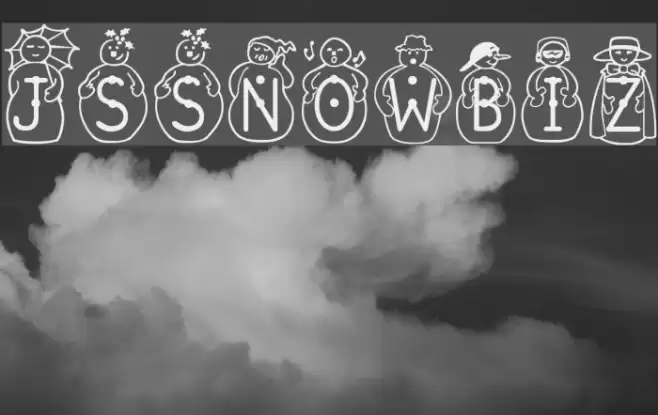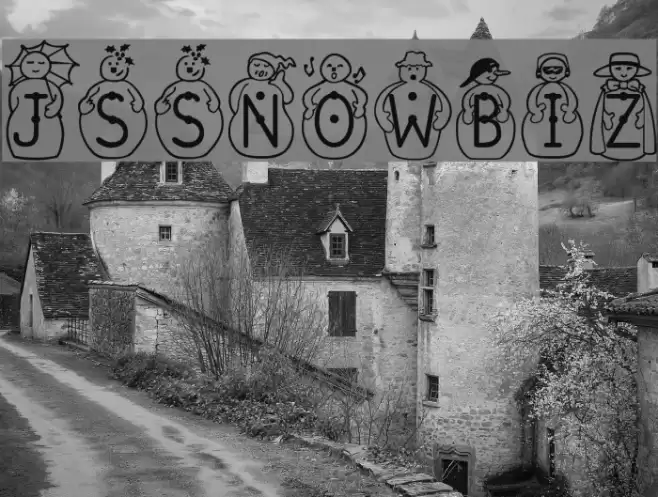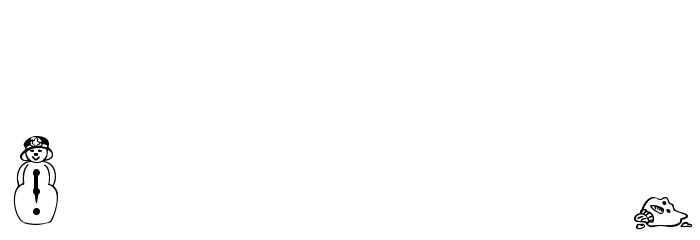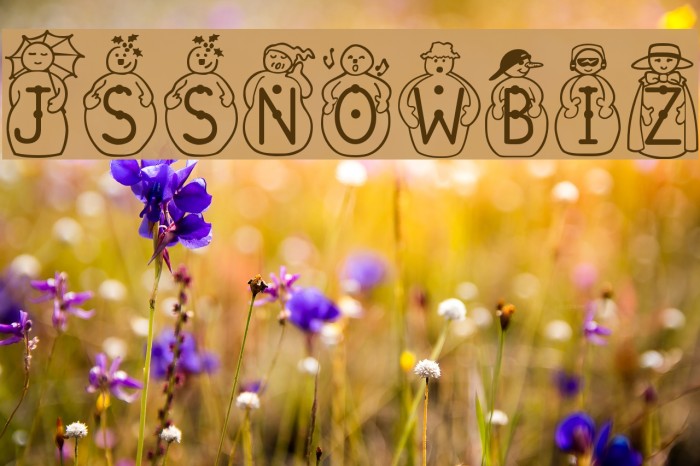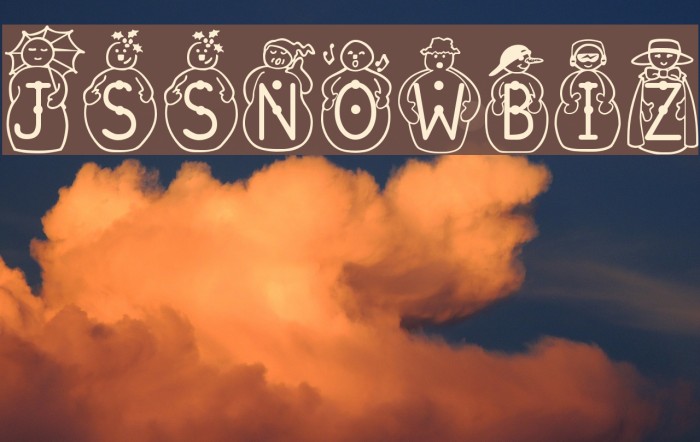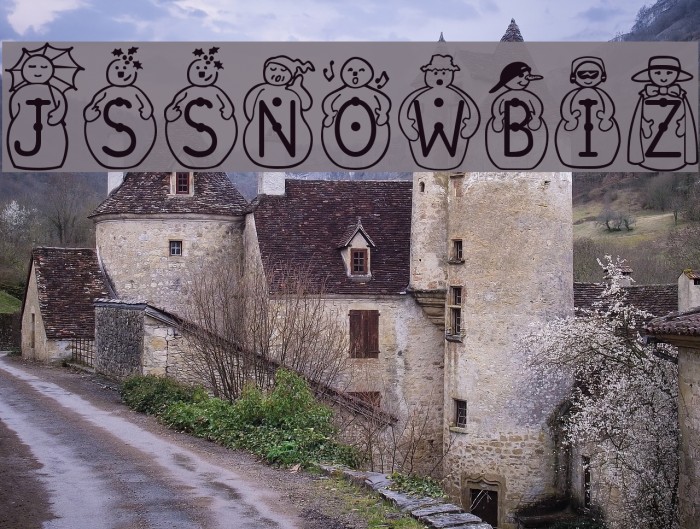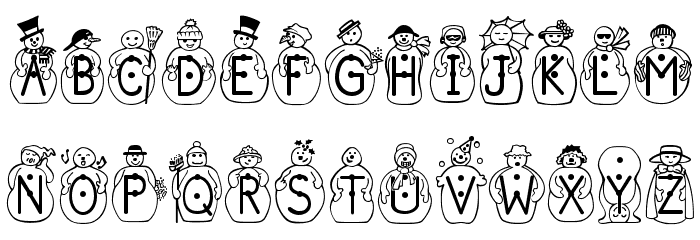
JS_Snowbiz Font
JS_Snowbiz Description
This whimsical and playful font features letters encased within snowman figures, each adorned with unique hats and accessories, adding a festive and cheerful touch. The characters are bold and rounded, with a consistent stroke width that maintains readability while enhancing the decorative theme. The snowmen vary in design, incorporating elements like top hats, scarves, and earmuffs, which contribute to a lively and engaging appearance. This font is ideal for holiday-themed projects, offering a fun and lighthearted aesthetic that captures the spirit of winter and celebration.
A playful, snowman-themed decorative font perfect for festive occasions from Uncategorized fonts.
- Proposed Projects: Ideal for holiday cards, festive banners, children's party invitations, and winter-themed posters.